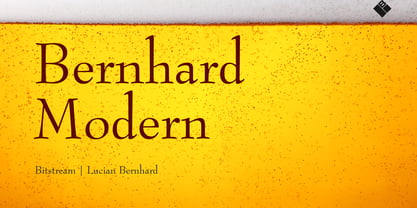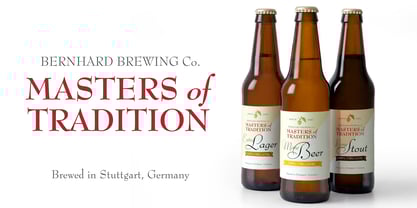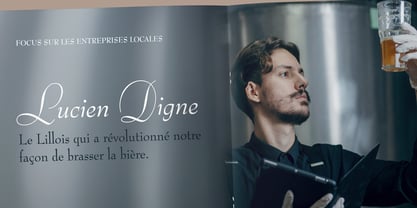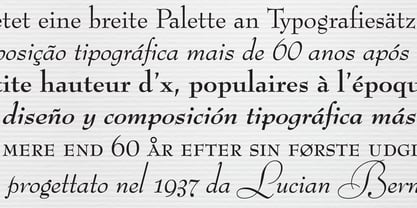
Bernhard Modern
von Bitstream
Die Schriftfamilie Bernhard Modern wurde von Lucian Bernhard entworfen und von Bitstream veröffentlicht. Bernhard Modern enthält 10 Stile und Familienpaketoptionen.
Bernhard Modern was drawn in 1937 by Lucian Bernhard for American Type Founders (ATF). It is his interpretation of engraving designs used in social printing. Bernhard Modern’s diminutive x-height, high contrast in character stroke weights, and ornate design give it a distinctive blend of sophistication and personality. Artisan products, from small-batch craft beverages to beauty products, can benefit from its distinctive mien.
Bernhard Modern’s graceful strokes resonate with consumers seeking authenticity, craftsmanship, and care – qualities that align perfectly with boutique Direct-To-Consumer alcohol brands.
Its versatility extends from luxury wine to whiskey branding, as well as upscale food and beverage packaging. All of which requires a balance of historic gravitas and contemporary elegance.
Designer: Lucian Bernhard